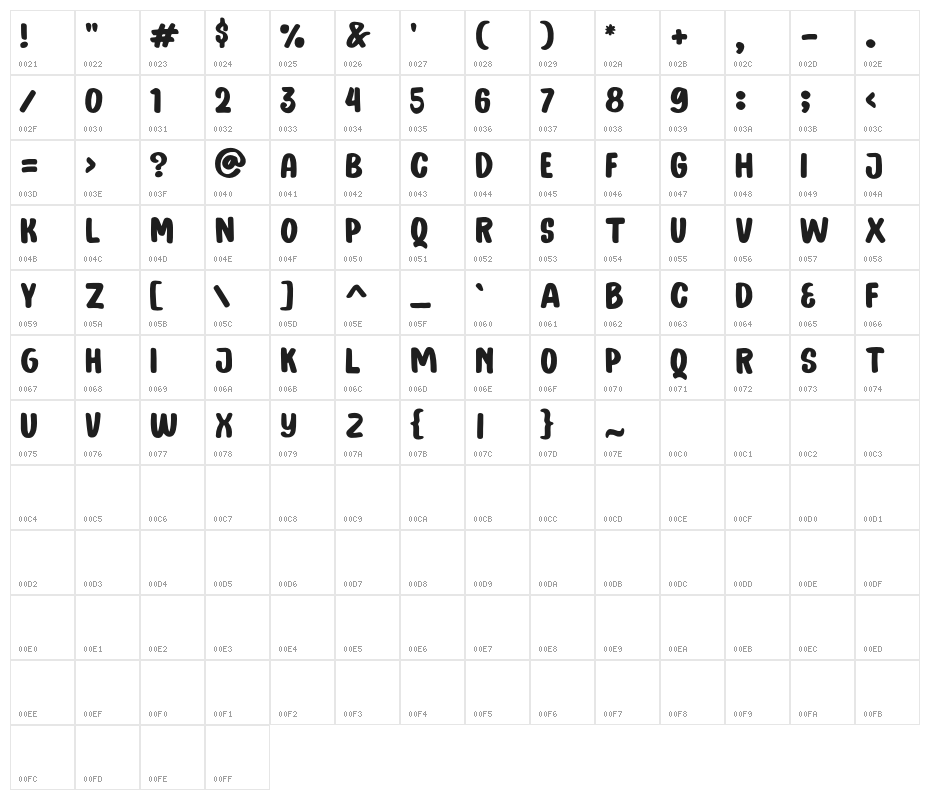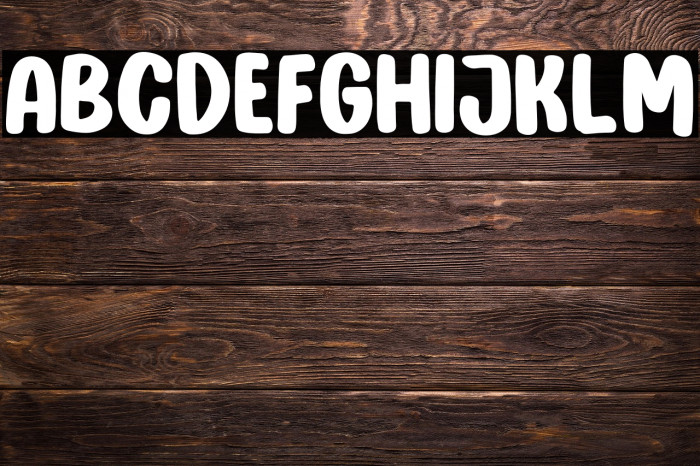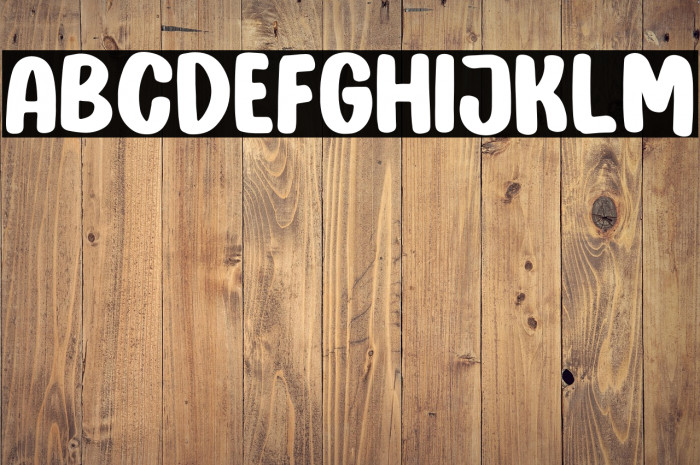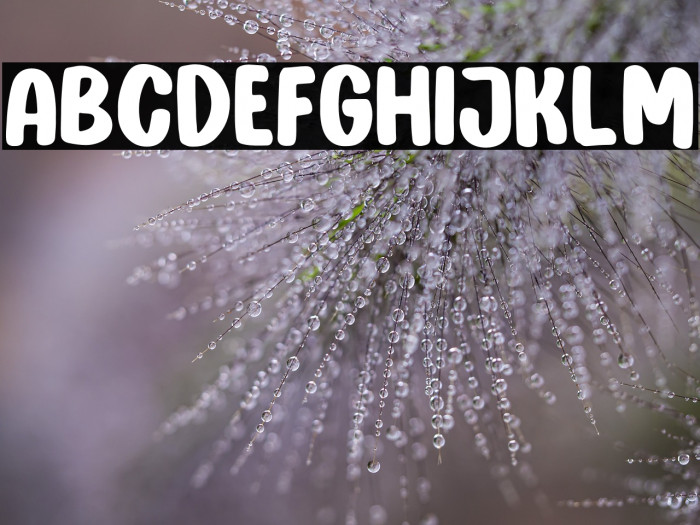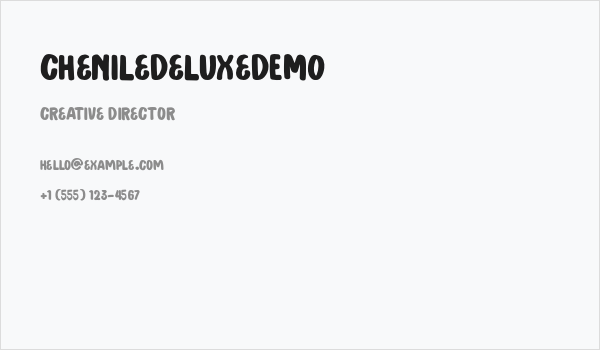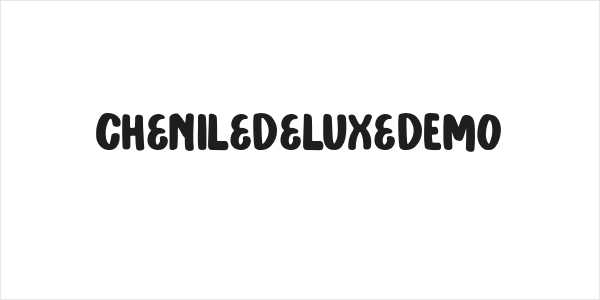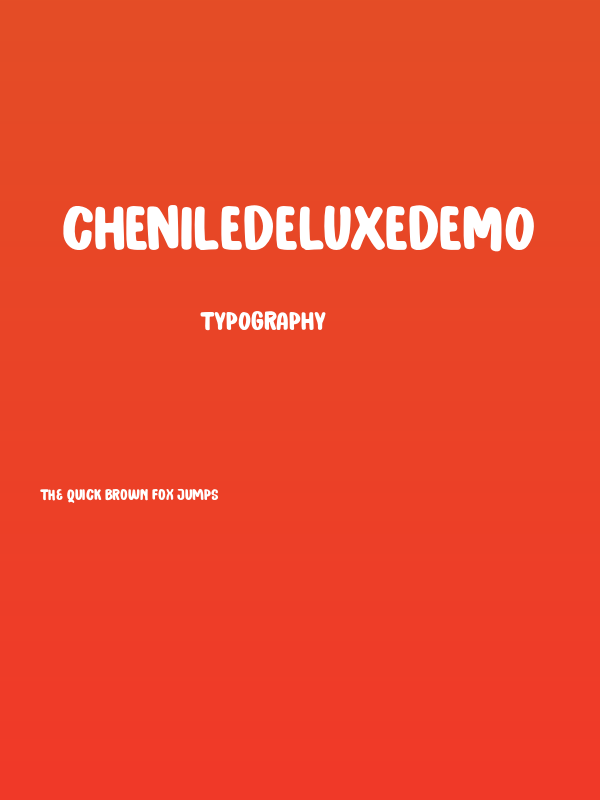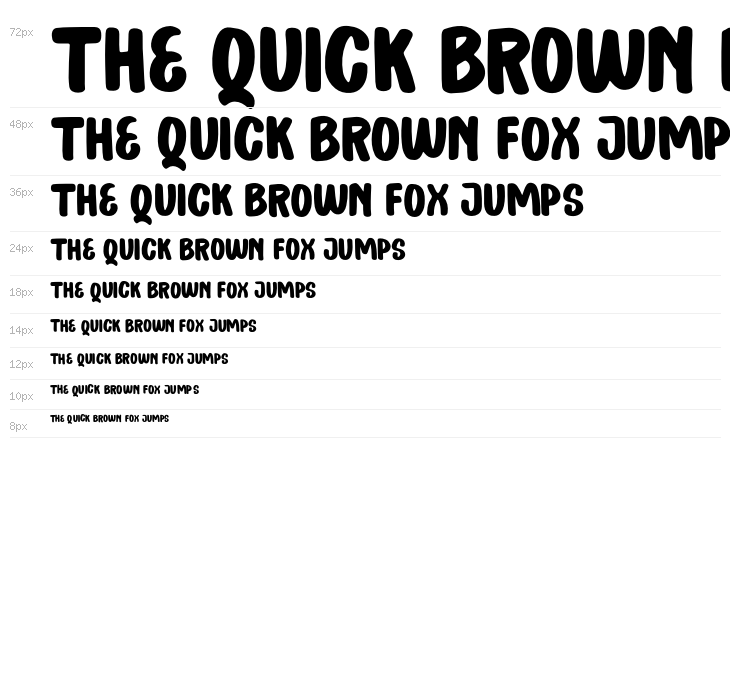
ChenileDeluxeDEMO Font
ChenileDeluxeDEMO Description
This font features bold, rounded characters with a playful and whimsical appearance. The letters are thick and have a consistent stroke width, giving them a strong presence. The rounded edges and slightly irregular shapes add a friendly and approachable feel. The numerals and special characters maintain the same bold and rounded style, ensuring consistency across all glyphs. This font is ideal for projects that require a fun and engaging look, such as children's books, playful branding, or creative posters. Its boldness makes it stand out, while the rounded forms keep it from appearing too harsh or formal.
| Proposed Projects | Ideal for children's books, playful branding, creative posters, and any project needing a fun, engaging look. |